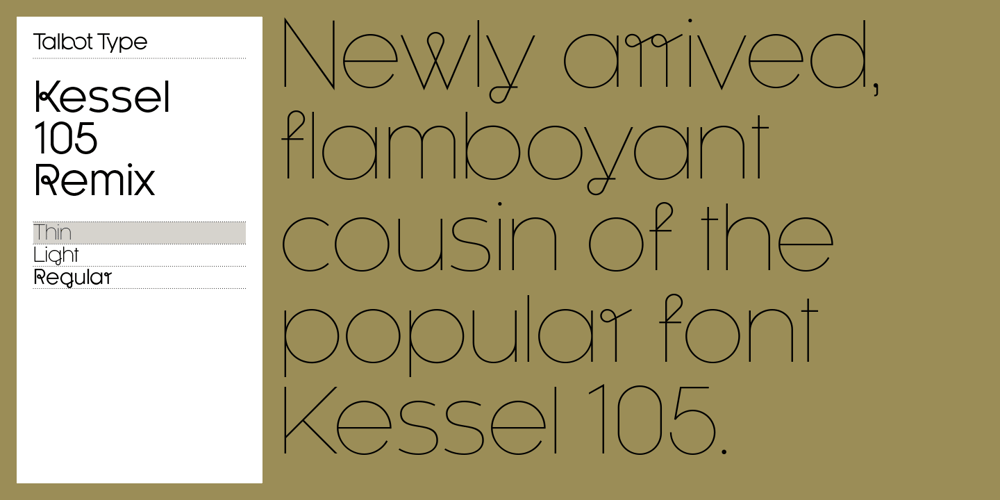
Kessel 105 Remix Font Family was designed by Adrian Talbot and published by Talbot Type. Kessel 105 Remix contains 6 styles and family package options. A remixed variation, available in three weights, of the popular Talbot Type geometric sans Kessel 105. The addition of occasional flourishes at the intersections of strokes, in both upper and lower case, adds character charm, making the font a perfect titling font to accompany Kessel 105, or a display font in its own right. Kessel 105 Remix features a comprehensive glyph set including a number of discretionary ligatures and accented characters for central European languages.